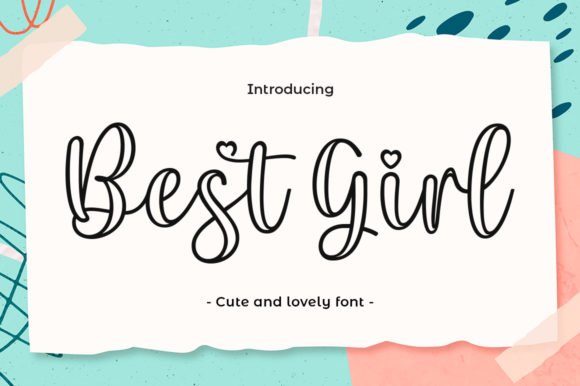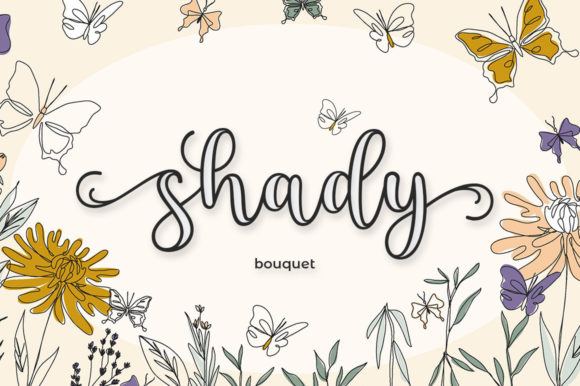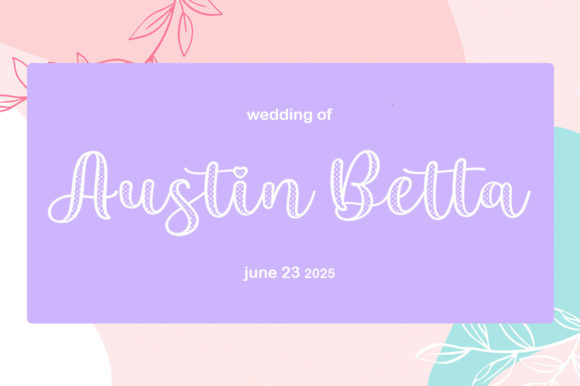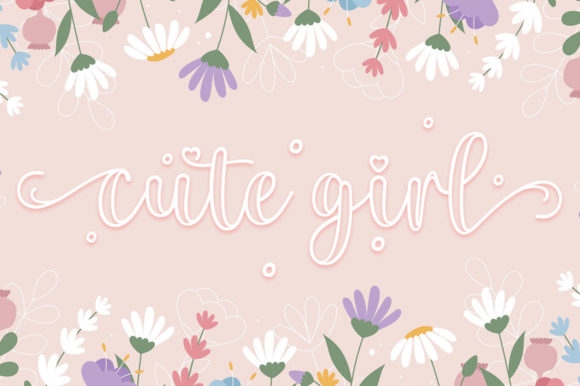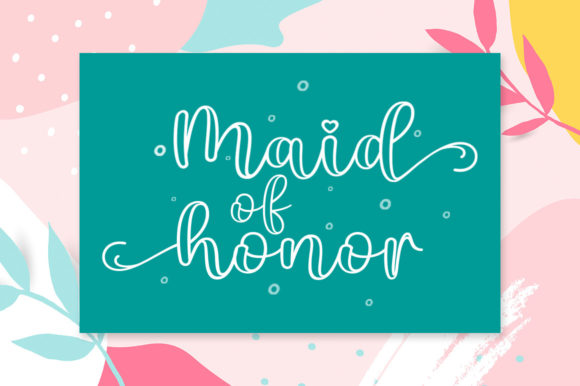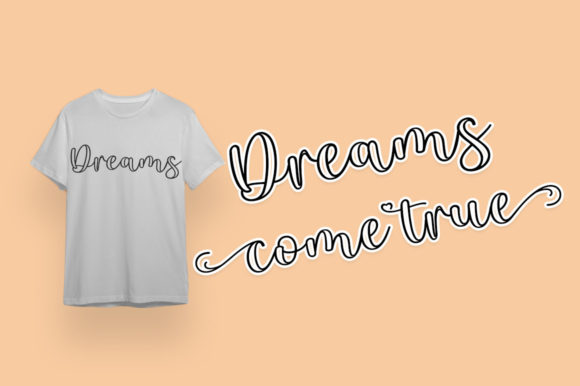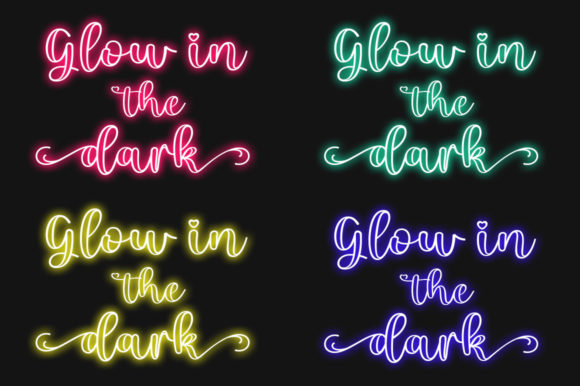
The Ultimate Chic Script Font: Best Girl Font
There’s something magical about the moment when a design project starts to come together – the fonts are chosen, the colors are selected, and the message begins to shine through. It’s a feeling of pride and accomplishment, knowing that your vision is taking shape. But what makes a project truly stand out? For many designers, it’s the perfect font that adds a touch of elegance and sophistication. Enter the Best Girl Font, a chic script font that’s sure to elevate your next design project.
With its stylish alternates and ligatures, the Best Girl Font is the perfect match for any project that demands refinement and style. Whether you’re designing a wedding invitation, a luxury brand brochure, or a high-end fashion label, this font is sure to make your design shine. And with its PUA encoding, accessing all glyphs and swashes is a breeze – giving you complete creative control over your design.
Key Features of Best Girl Font
- Unique Characteristics: This font features a distinctive, cursive script with elegant flourishes, making it ideal for creative and artistic projects.
Designer Review: Best Girl Font
Overall, I was quite impressed with the Best Girl Font, but it’s not without its quirks. ✨ The font’s feminine touch is undeniable, with elegant curves and delicate lines that evoke a sense of whimsy and playfulness.
The Best Girl Font is particularly well-suited for projects that require a touch of sweetness and innocence, such as children’s book illustrations, greeting cards, or fashion branding. ✨ It’s also surprisingly versatile, working well in both digital and print formats.
- Feminine and elegant aesthetic
- Delicate lines and curves add a touch of whimsy
- Surprisingly versatile in both digital and print formats
- ⚠️ Limited character set, may not be suitable for extensive text-based projects
- ⚠️ May not be the best choice for projects requiring a strong, bold font
- ⚠️ Some characters may not display consistently across different devices or browsers
Overall, I’d recommend the Best Girl Font for projects that require a delicate, feminine touch. While it’s not perfect, its unique aesthetic and versatility make it a solid choice for designers looking to add a touch of sweetness to their work.